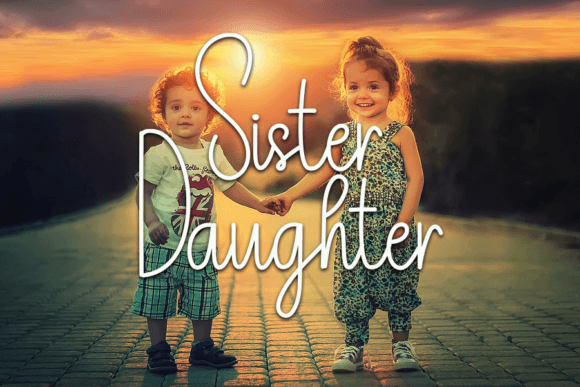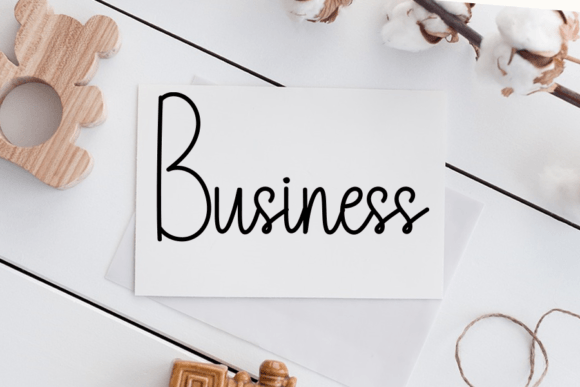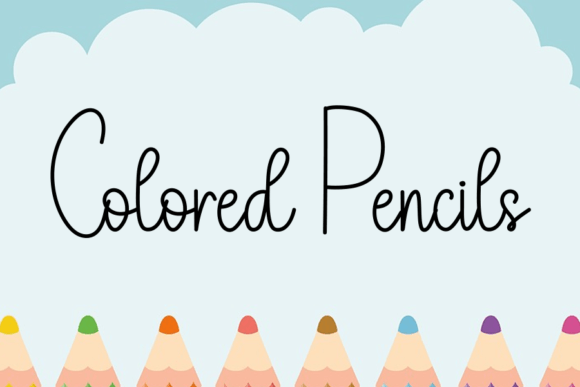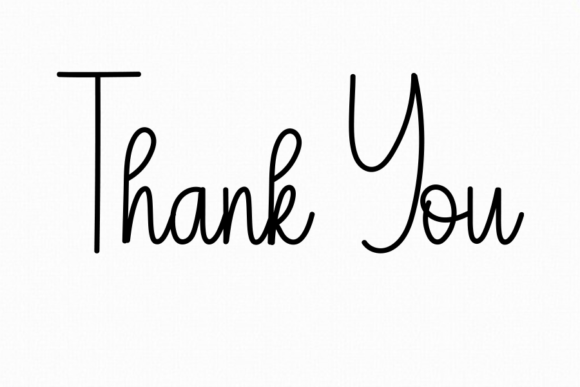
Sweet Signature Font
About Sweet Signature Font
Sweet Signature Font is a fun and friendly handwritten script that brings charm and versatility to your projects. With its smooth flow and approachable style, this typeface adds personality to both personal and professional designs. Because of its adaptable structure, Sweet Signature Font is suitable for crafts, invitations, logos, and digital creative work.
A Friendly Script Typeface with Style
Handwritten fonts often give designs a personal touch, and Sweet Signature Font captures that beautifully. Its flowing strokes combine elegance with playfulness, ensuring text feels authentic while staying easy to read. Moreover, its balanced design adapts to multiple uses, from casual greeting cards to polished branding. As a result, this font provides flexibility for creative professionals.
If you enjoy creating stationery and personal projects, Sweet Signature Font will quickly become a favorite. For example, it can turn a simple thank-you card into a meaningful keepsake. In addition, it works perfectly for wedding invitations, seasonal greetings, and birthday notes. Because of its friendly details, every message feels unique and memorable.
A Script Typeface for Logos and Branding
Brands and creatives who want to present an approachable yet stylish identity can rely on Sweet SignatureFont. Logos, labels, and packaging gain personality with this handwritten script. Furthermore, on social media, it enhances posts, banners, and stories with charm and creativity. When paired with modern sans serif fonts, Sweet Signature Font achieves a balance between friendliness and professionalism.
Another strength of Sweet Signature Font is its adaptability across formats. In print, it works well for posters, brochures, merchandise, and magazines. Digitally, it elevates websites, blogs, and presentations with warmth and originality. Since it remains legible at both small and large sizes, this handwritten script is dependable for many creative applications.